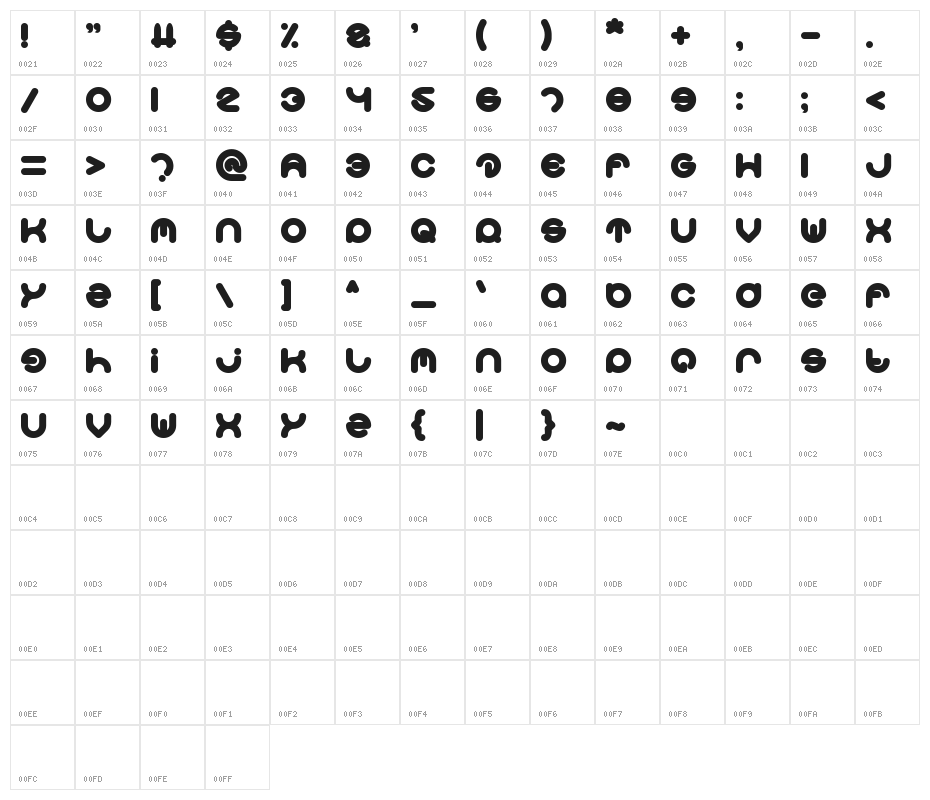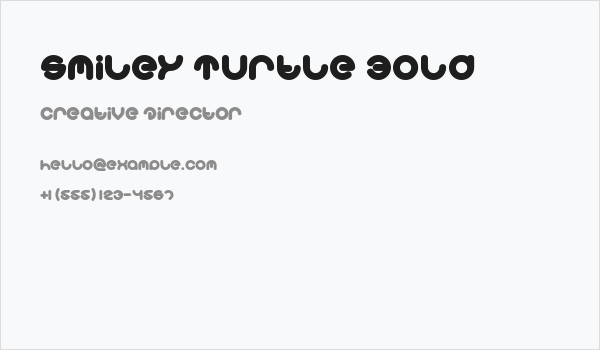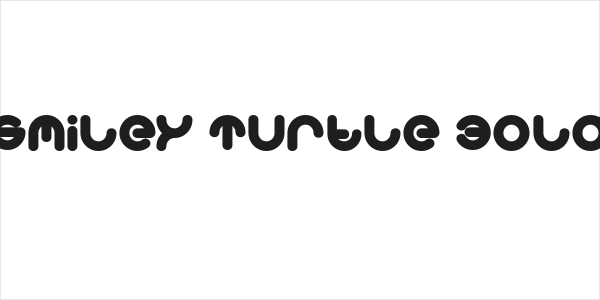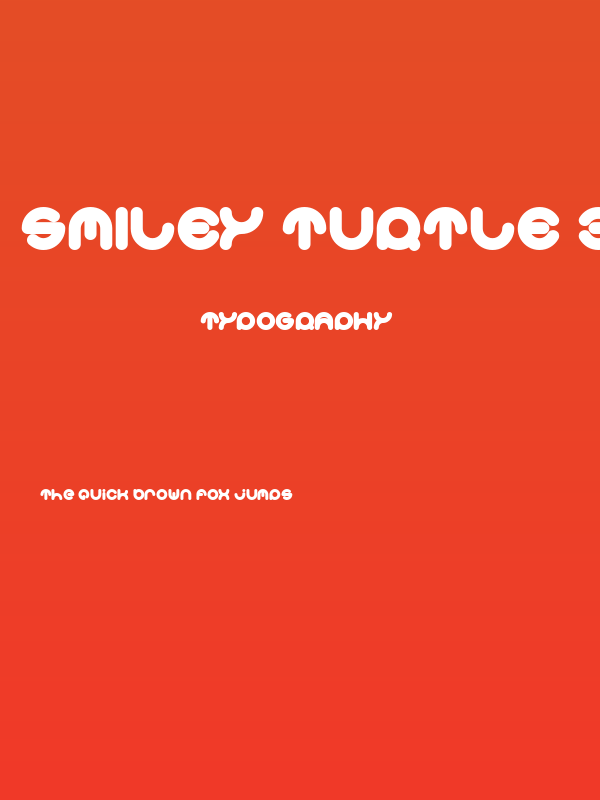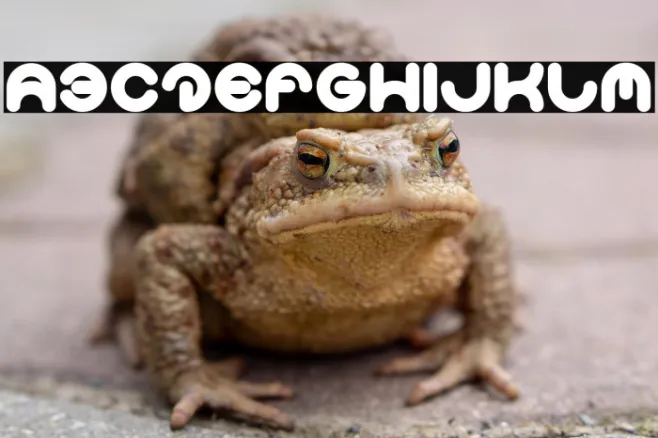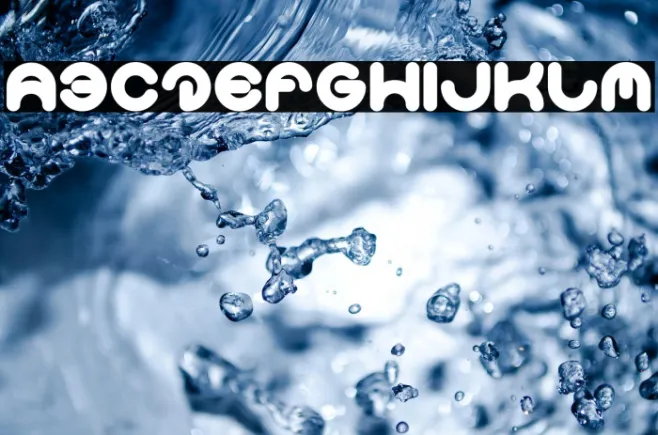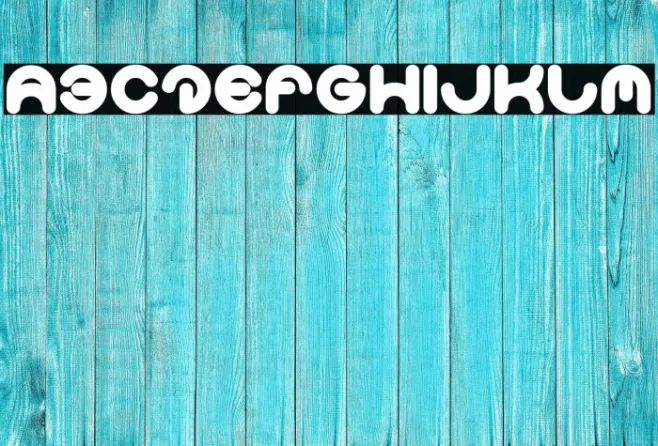
Smiley Turtle Bold Font
Smiley Turtle Bold Description
This font features a playful and bold design with rounded edges and a bubbly appearance. The characters are uniformly thick, giving it a strong presence and making it highly legible. The circular and smooth shapes create a friendly and approachable look, ideal for projects that require a fun and informal tone. The font maintains a consistent weight throughout, ensuring a cohesive and balanced appearance across all characters. Its unique style is both modern and whimsical, making it suitable for creative and lighthearted applications.
| Overall Style | Modern, Whimsical |